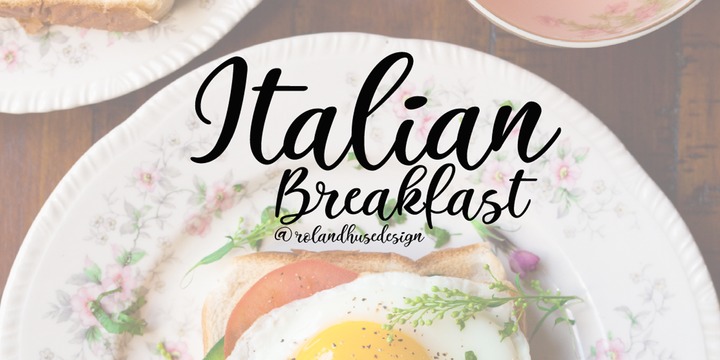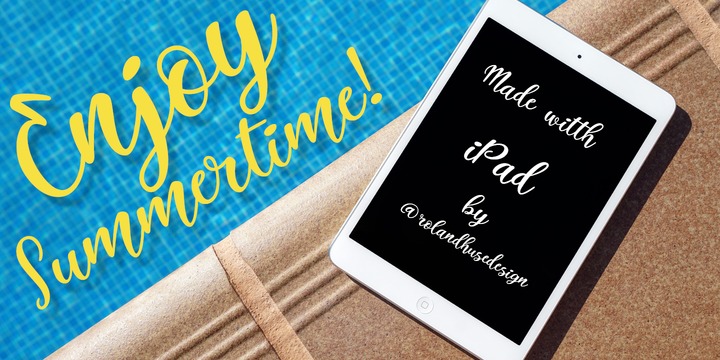
Italian Breakfast is a handwritten, fun and happy modern calligraphy script font designed with iPad.
Carefully crafted, clean vectors in Glyphs App. You can create beautiful hand-made typography with its bouncy, organic flow. Contains all Wester and Central European accented characters, currencies: Thai Baht, Euro, Dollar and Yen.
com Italian Breakfast is perfect for all your creative projects wether it be indie logos, printed quotes, invitations, greeting cards, Instagram posts, products, packaging, blog headers etc.